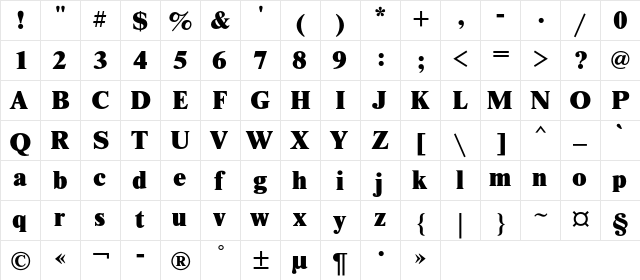
NewtonXC Regular Font Preview
NewtonXC Regular
NewtonXC Regular Font Details
Design Context for NewtonXC Typeface
NewtonXC takes a measured approach to typography — its balanced proportions and neutral character make it a reliable workhorse for both digital and print work.